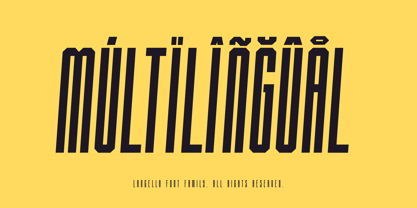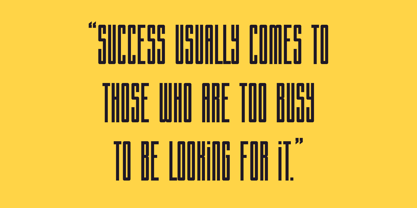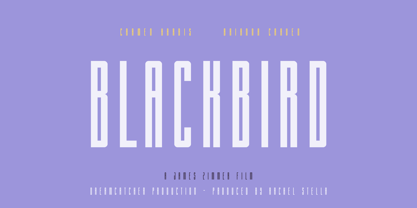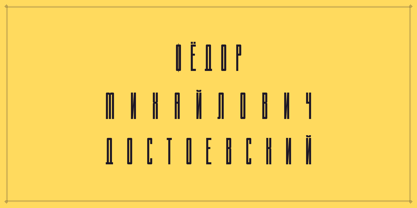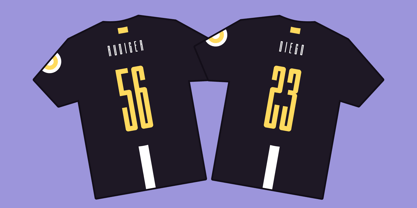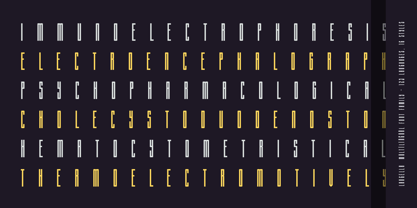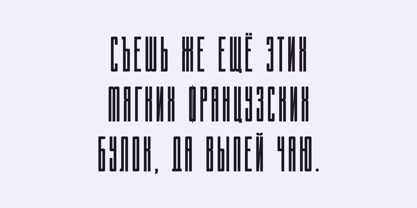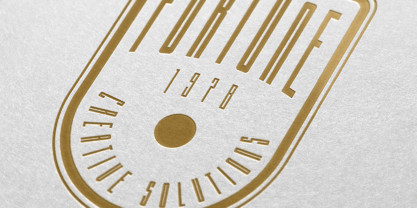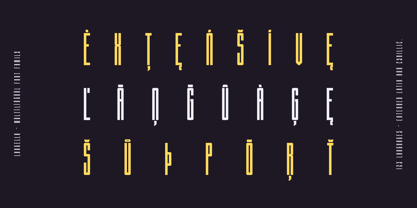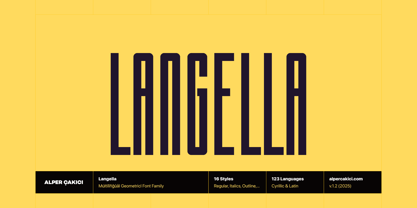
Langella
by AlperCakici
The Langella Font Family was designed by Alper Çakıcı and published by AlperCakici. Langella contains 16 styles and family package options. More about this family
Langella is a carefully crafted tall and thin display font family designed to make a striking impression. It features Roundand Sharp Cornered versions, each offering a modern yet elegant touch suitable for a wide range of creative projects. With 16 distinct styles — including Italic, Outline, Outline Italic, Regular, Rough, Rough Italic, Shadow, Shadow Italic, Sharp, Sharp Outline, Sharp Italic, Sharp Outline Italic, Sharp Rough, Sharp Rough Italic, Sharp Shadow, and Sharp Shadow Italic — Langella offers exceptional versatility for any visual identity. Meticulously designed with excellent kerning and multilingual support for 123 languages, including Cyrillic support, Langella is perfect for both digital and print applications. Use Langella to create impactful titles, posters, book covers, movie graphics, branding materials, social media visuals, editorials, and packaging designs. Its tall, elegant proportions and contemporary structure make it stand out effortlessly in any design context.
Designers: Alper Çakıcı
Foundry: AlperCakici